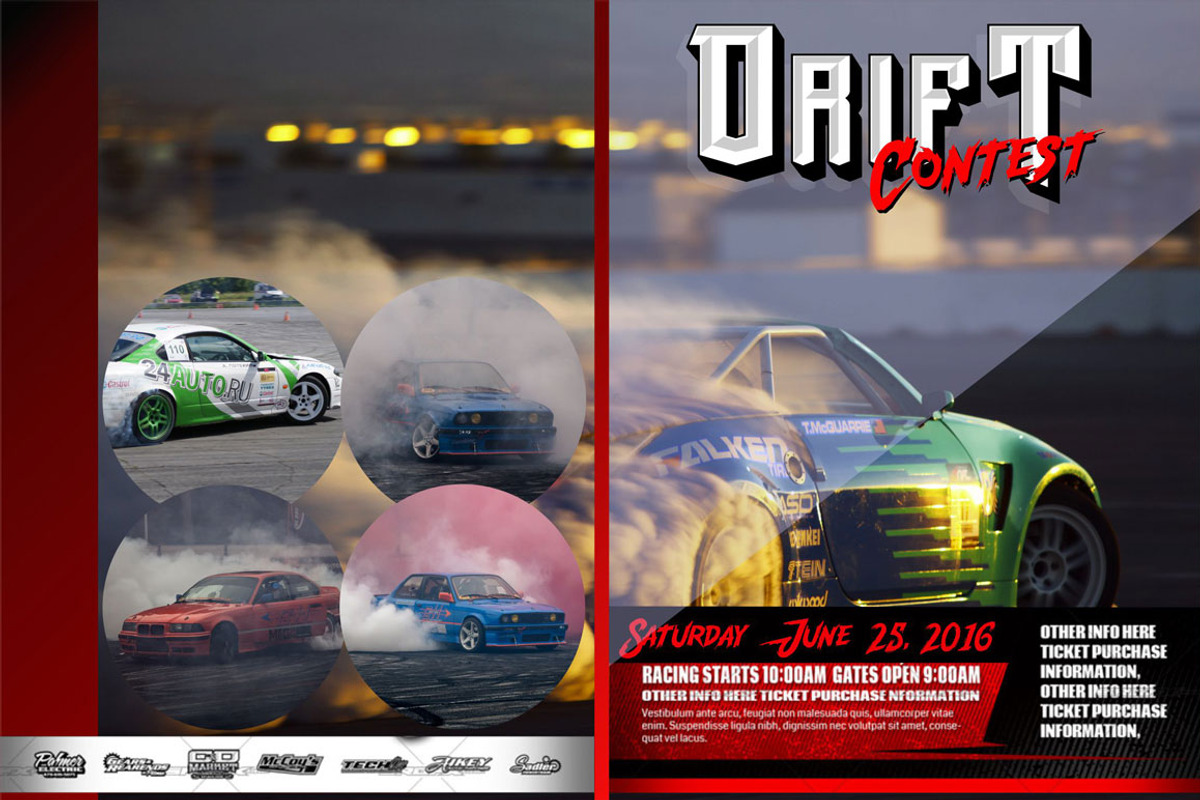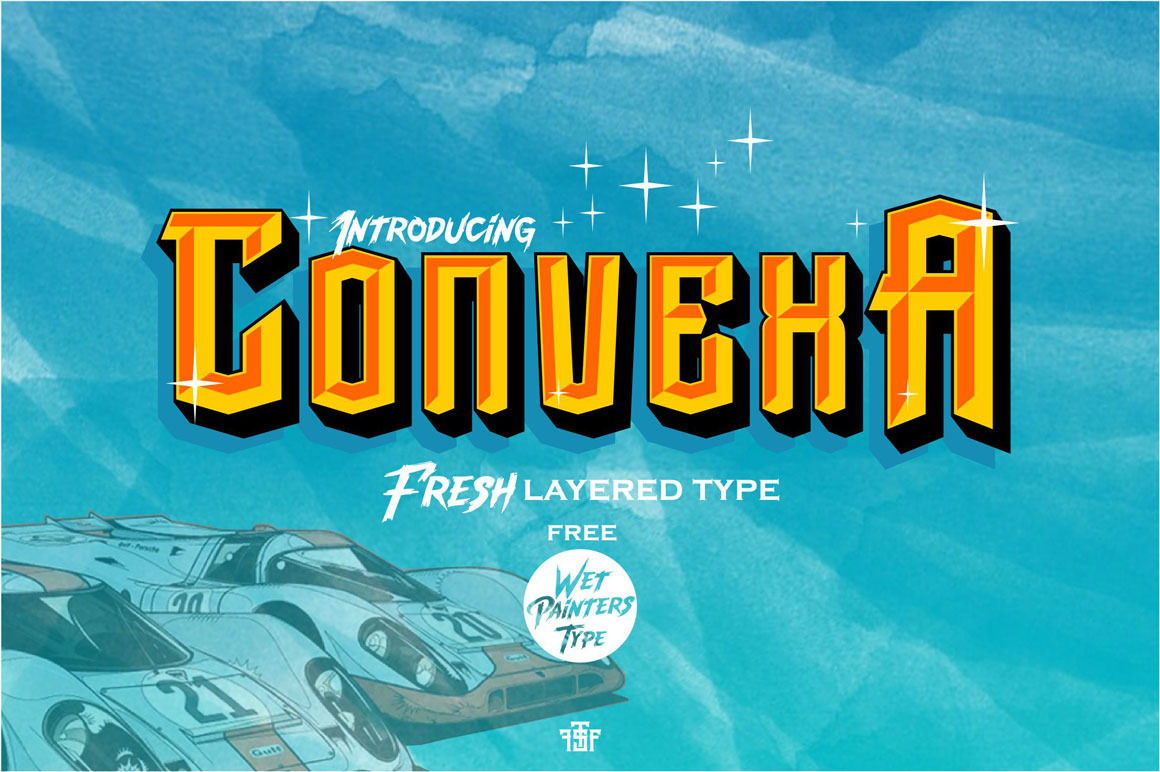
Convexa Typeface
Introducing..
This one is Convexa Typeface, it's come with layered type family and Convexa have 5 Layer to combine..
- Convexa
- Convexa insert
- Convexa shadow
- Convexa Extrude
- Convexa Outline and one free type
- Wet Painters
Inspired by Game ,3D graphic , Sign Painting from all various artist. it’s have a detail shapes and good looking for Graphic design Project ,Logotype, Letterhead, Titles, Poster, Cover, and more..